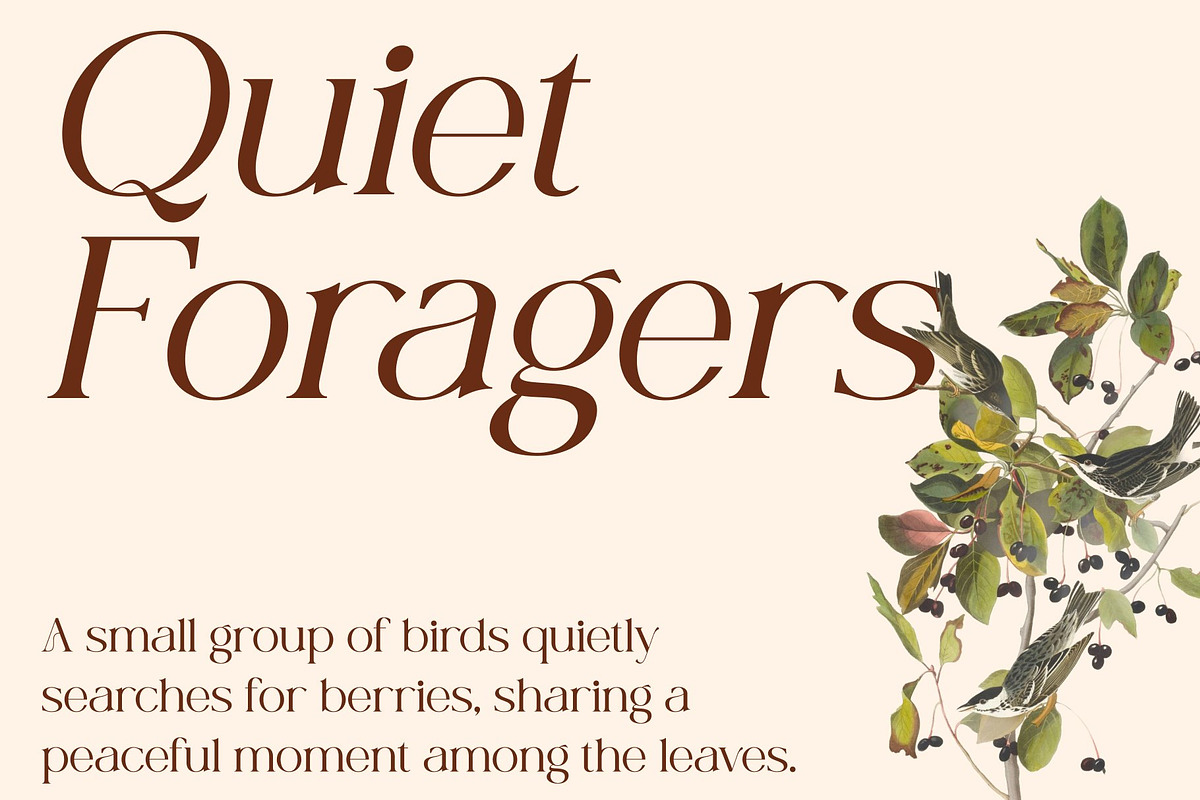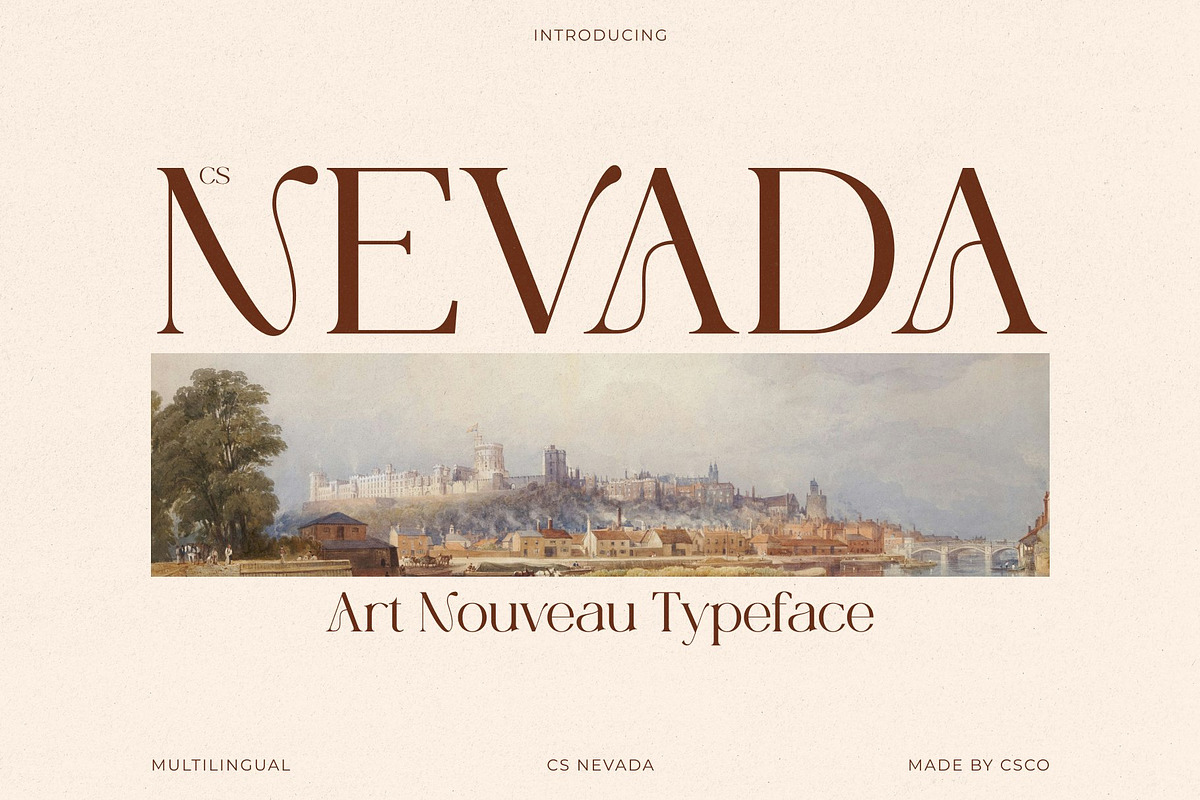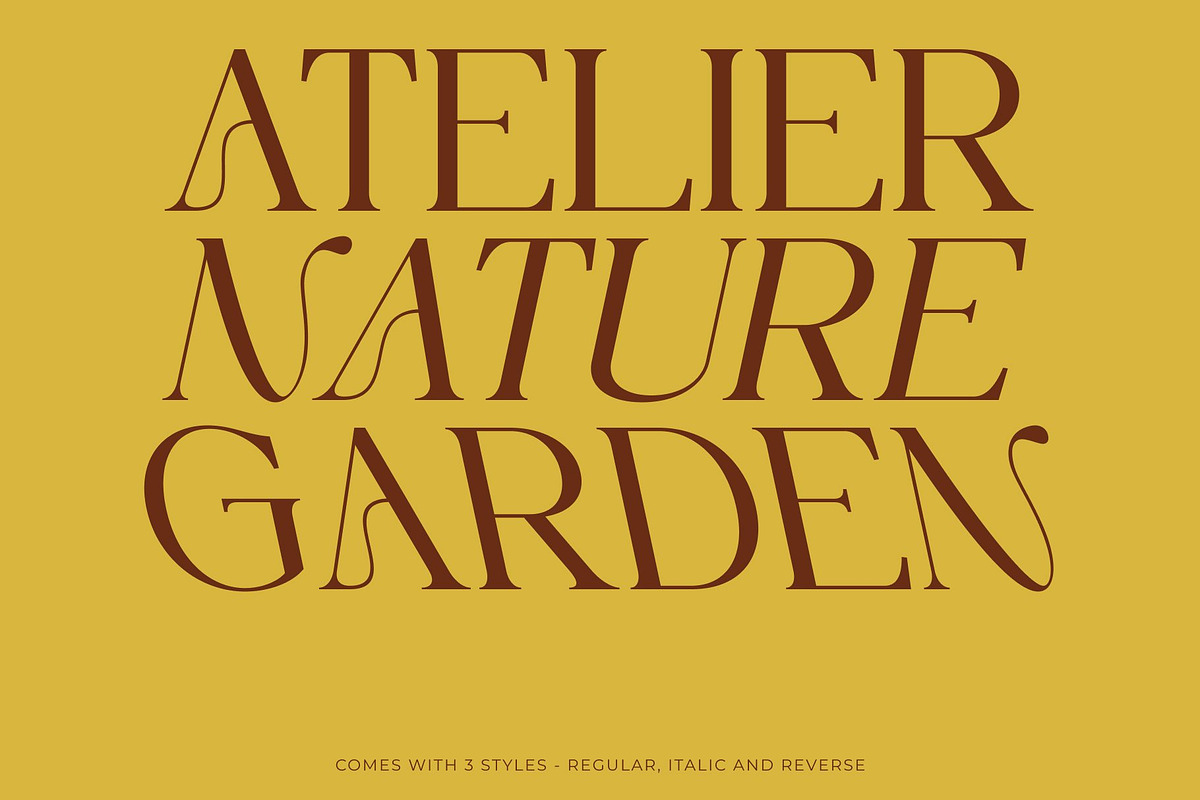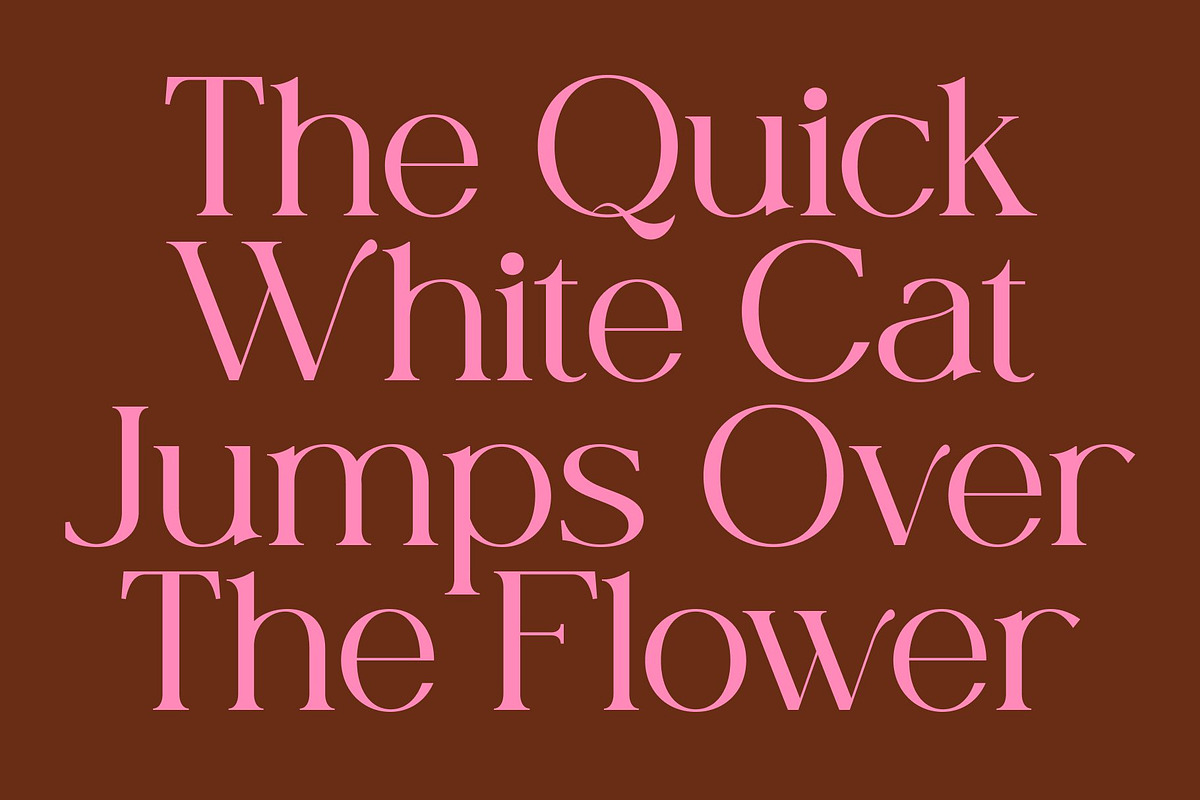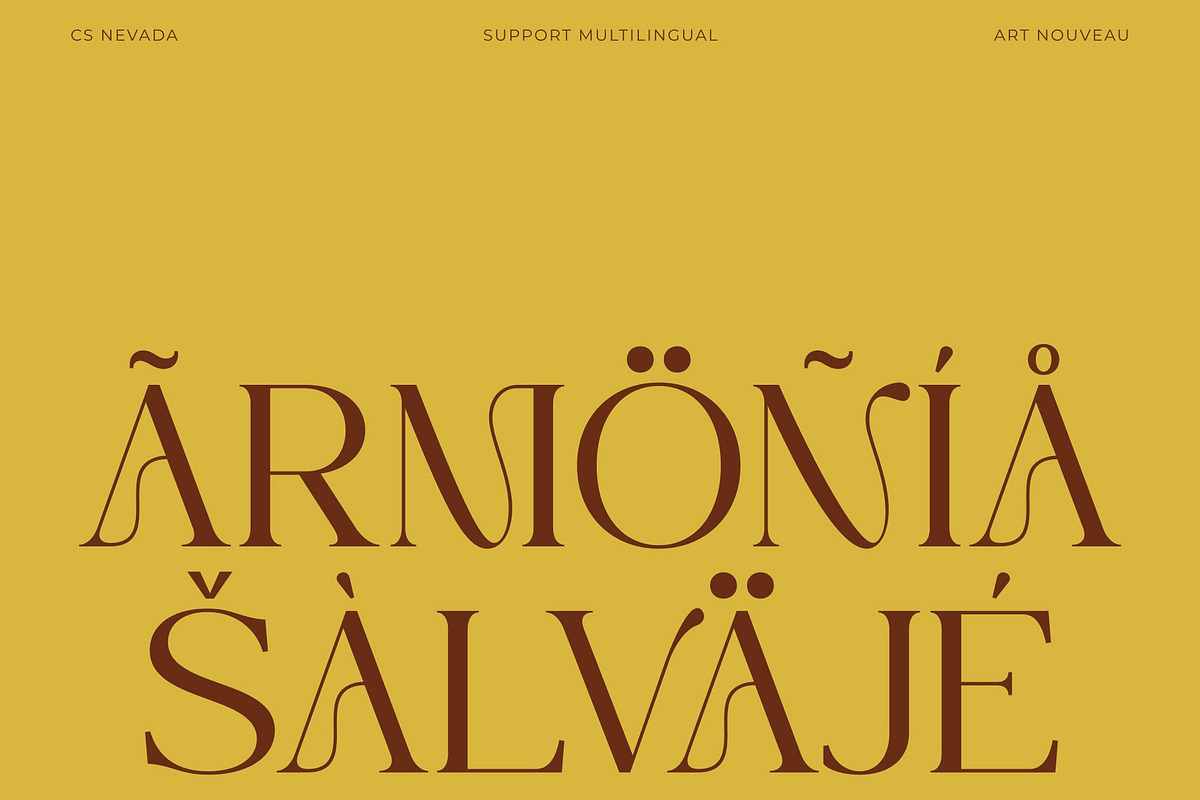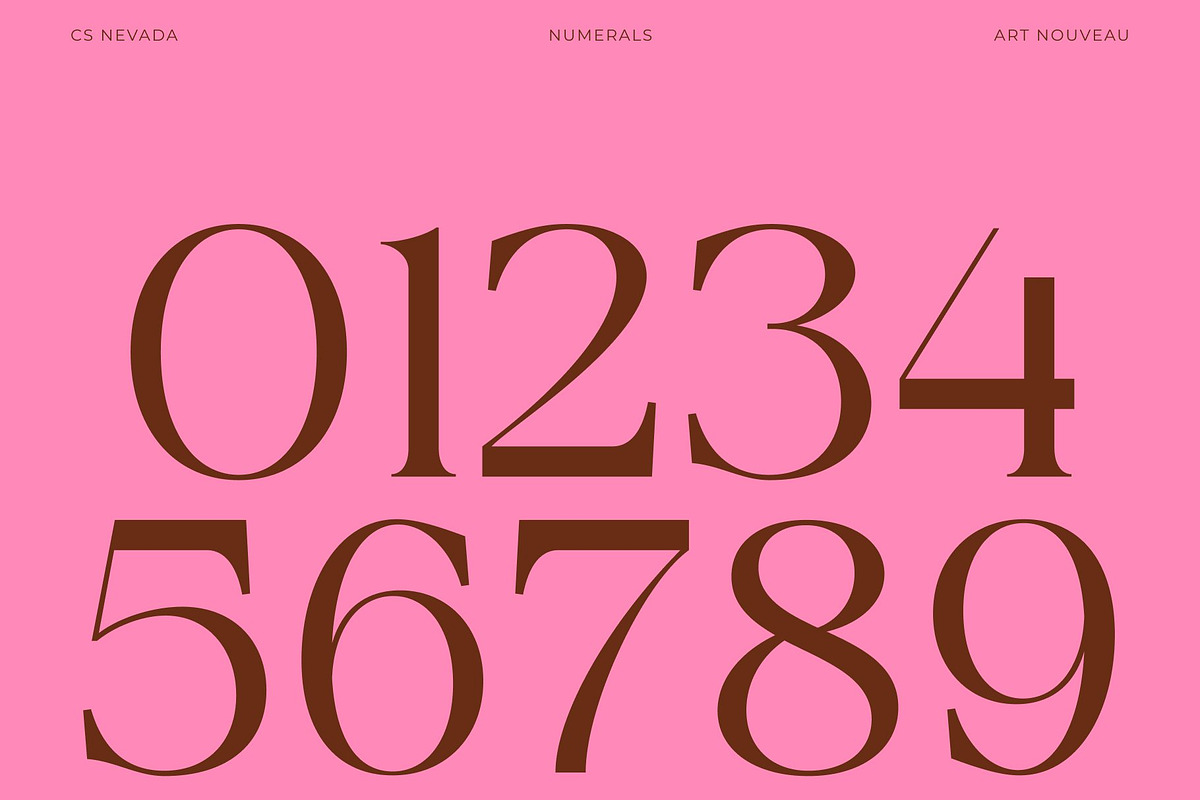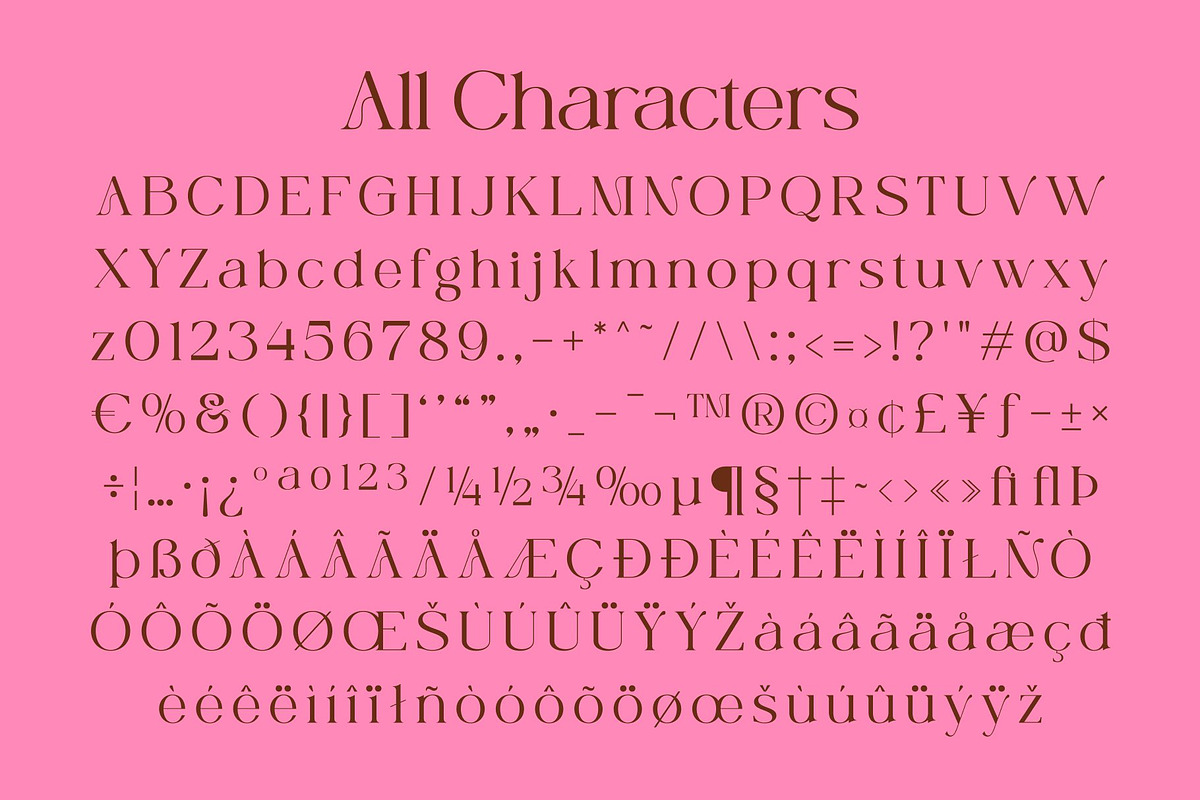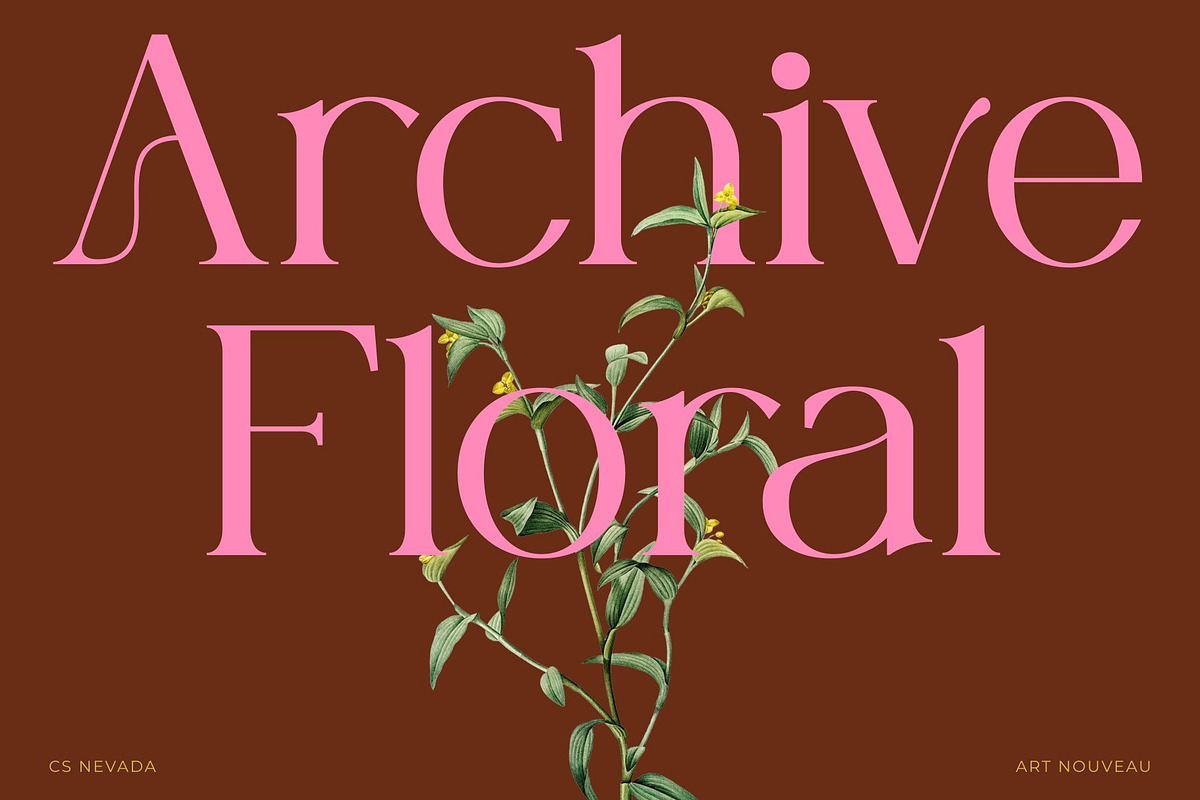
CS Nevada – Art Nouveau Font
CS Nevada – Art Nouveau Serif with Elegant High-Contrast Flow
Modern Art Nouveau Serif with Refined Style This is a modern Art Nouveau serif font that blends graceful organic forms with refined contemporary elegance. Its carefully crafted letterforms reflect the beauty of classic decorative typography while maintaining a fresh and modern presence. The result is a typeface that feels luxurious, expressive, and visually captivating.
High Contrast with Organic Curves The font’s high-contrast strokes create a dramatic visual rhythm that enhances its elegant appearance. Combined with smooth, organic curves inspired by Art Nouveau design, this font achieves a harmonious balance between artistic expression and readability. This flowing structure adds movement and sophistication to every word.
Fresh Elegance with Timeless Appeal This font merges timeless beauty with modern refinement, making it perfect for designs that demand a fashionable and high-end aesthetic. Its elegant curves and refined detailing give the font a polished personality that feels both classic and contemporary.
Perfect for Editorial and Luxury Branding Ideal for editorials, luxury branding, and fashion campaigns, this font excels in headlines, titles, and statement typography. Whether used in magazine layouts, upscale packaging, or premium brand identities, it delivers a fresh, elegant, and sophisticated presence that elevates visual storytelling.
CS Nevada Regular
CS Nevada Italic
CS Nevada Reverse Italic